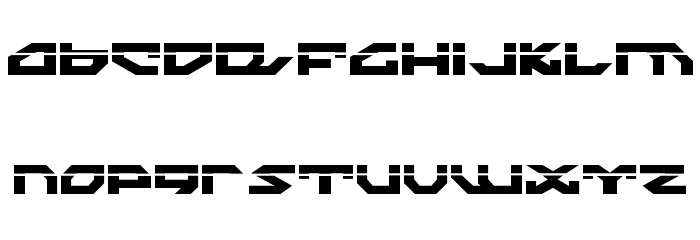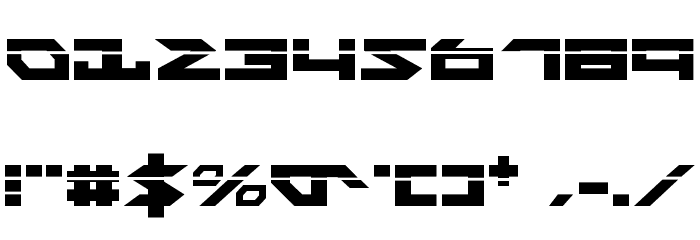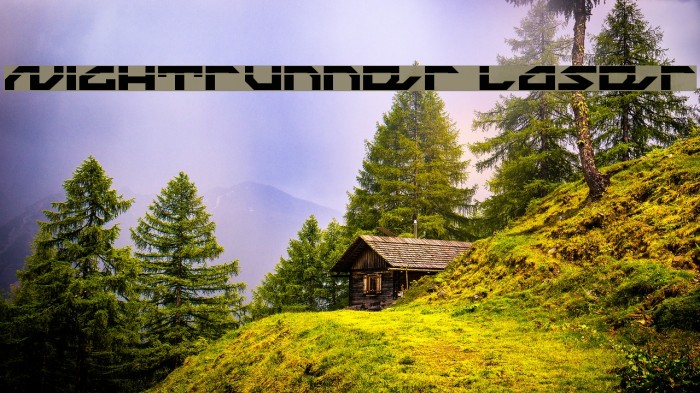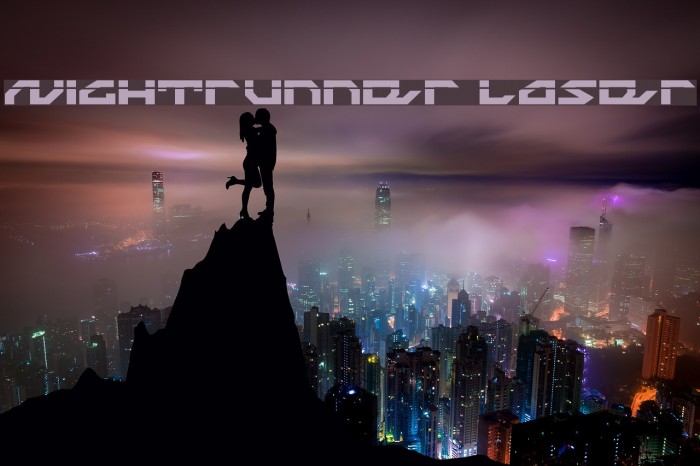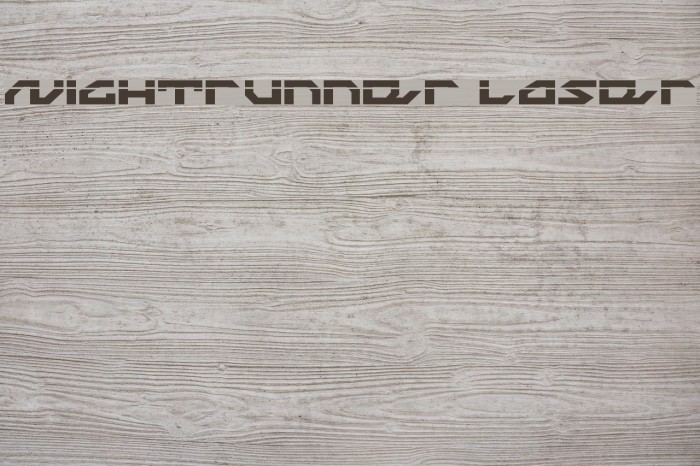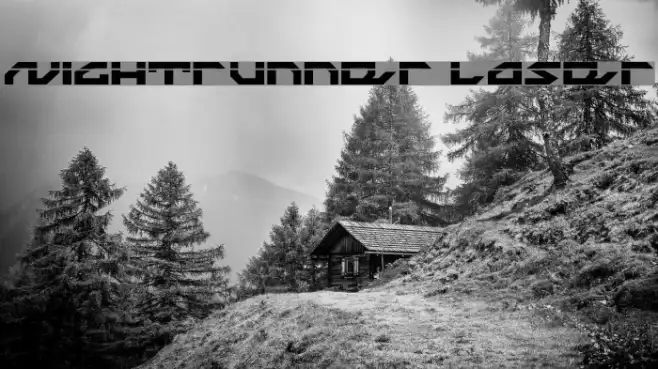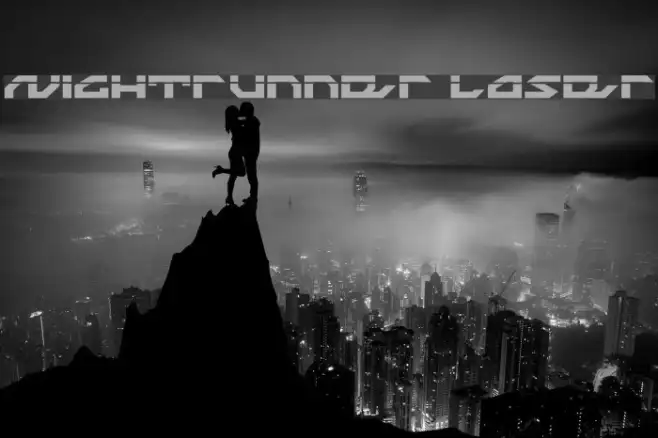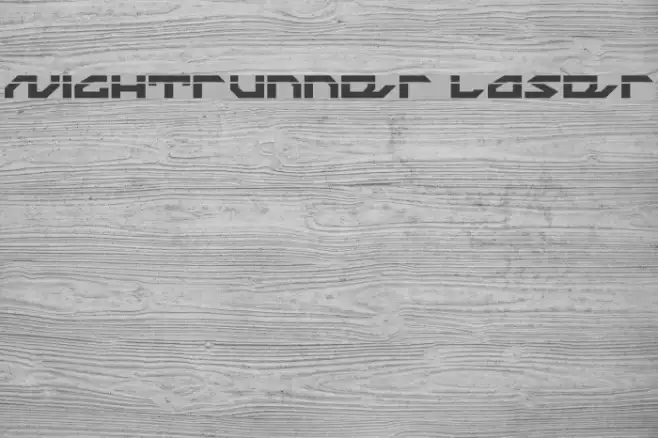
Nightrunner Laser Font
This font features a futuristic and angular design, characterized by sharp edges and geometric shapes. The letters are constructed with a bold, solid appearance, giving them a strong visual impact. The uppercase and lowercase letters maintain a consistent style, with the lowercase mirroring the uppercase in form. Numbers and special characters follow the same design principles, ensuring uniformity across all glyphs. The font's unique style is reminiscent of digital or sci-fi themes, making it ideal for projects that require a modern and edgy look.
A futuristic, angular font with bold geometric shapes.
- Font: Nightrunner Laser
- Proposed Projects: Ideal for sci-fi themed designs, video game titles, tech branding, and futuristic posters.
- Overall Style: Futuristic